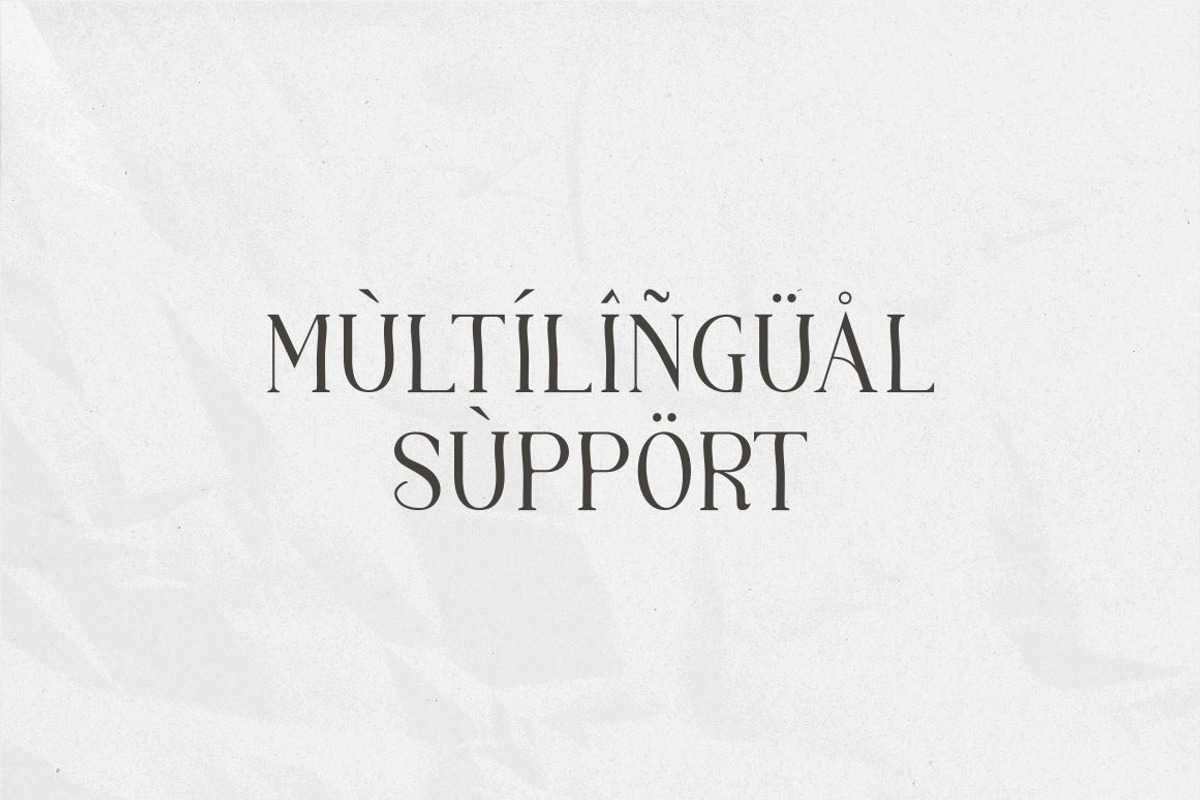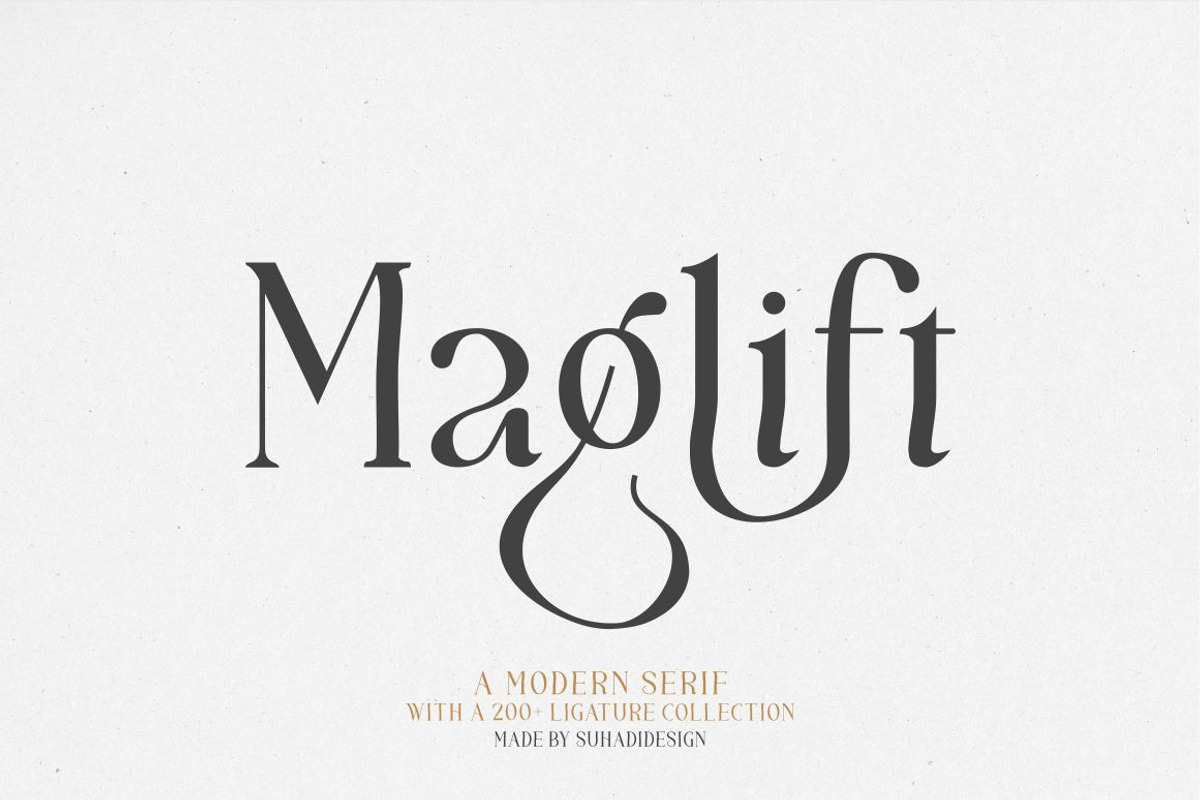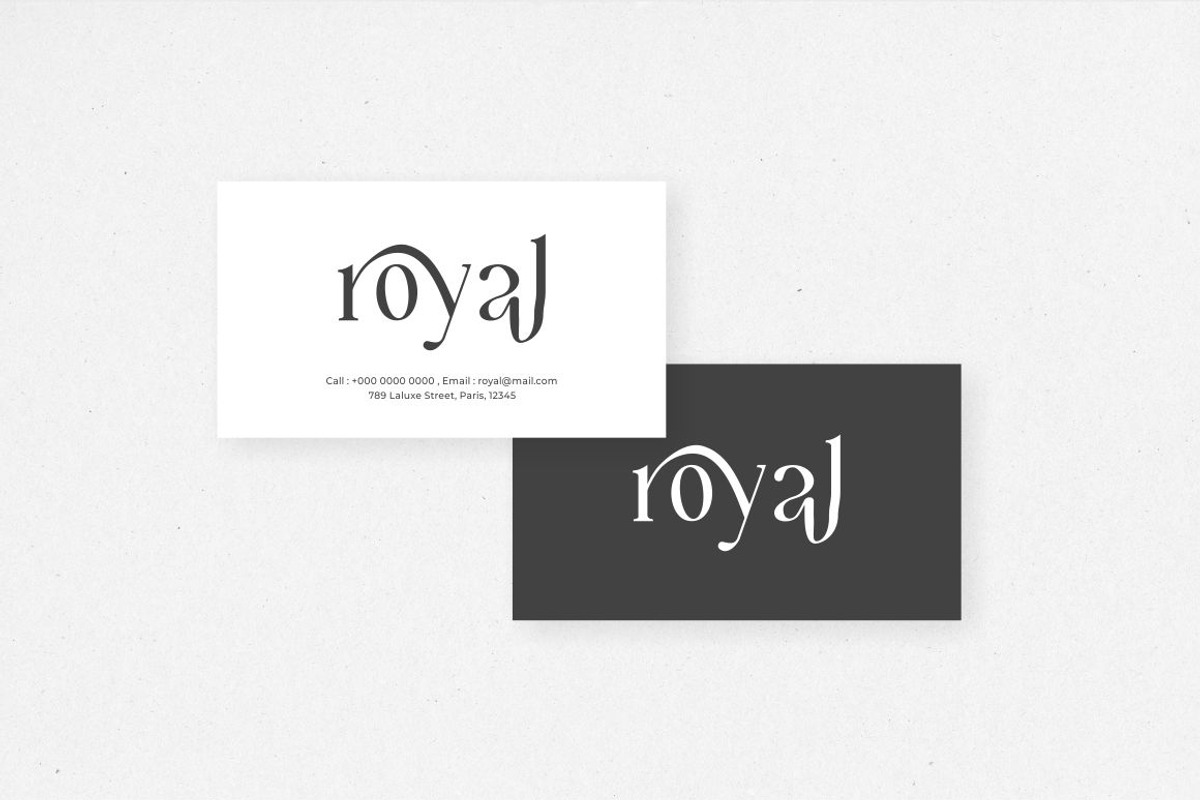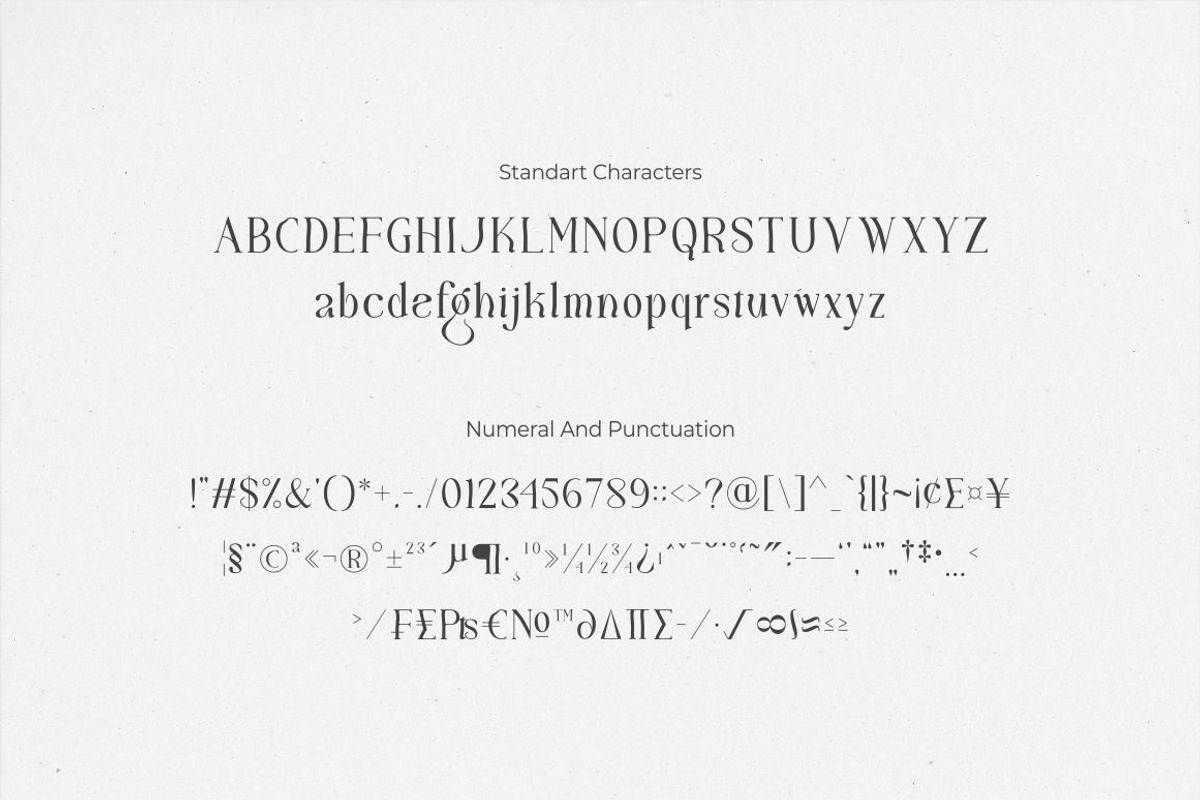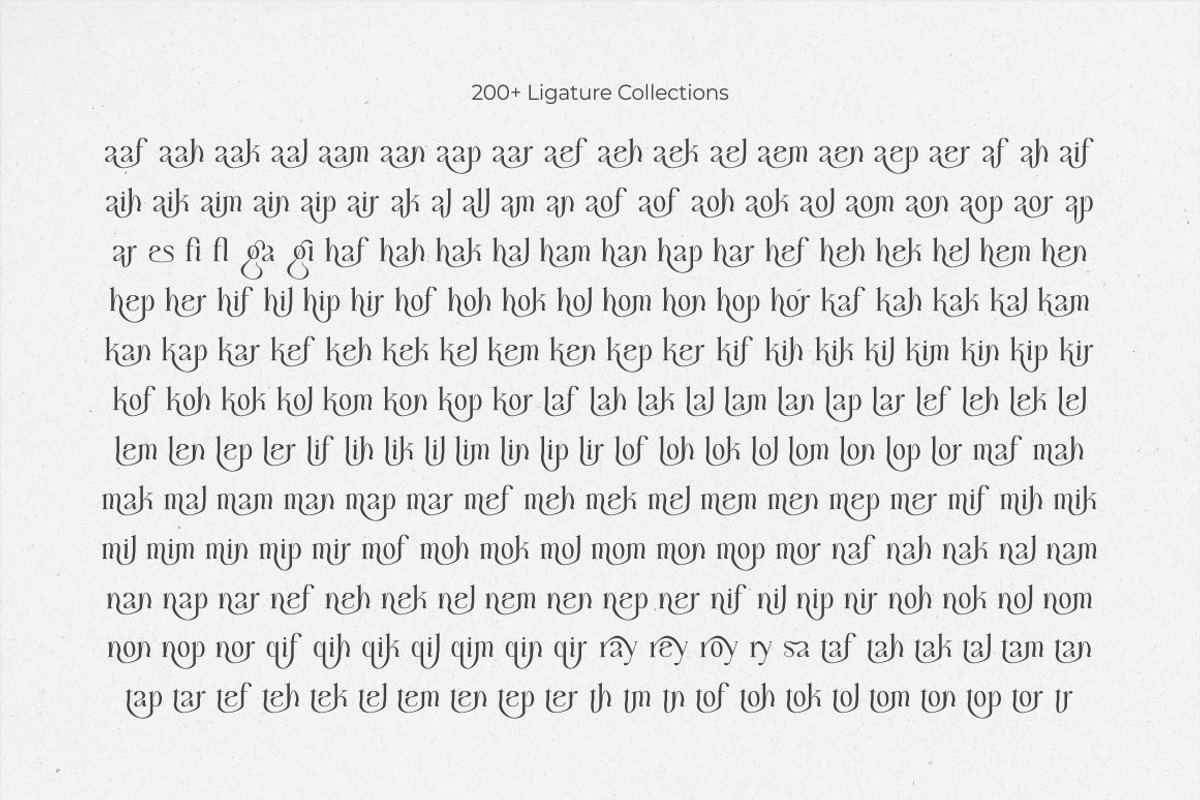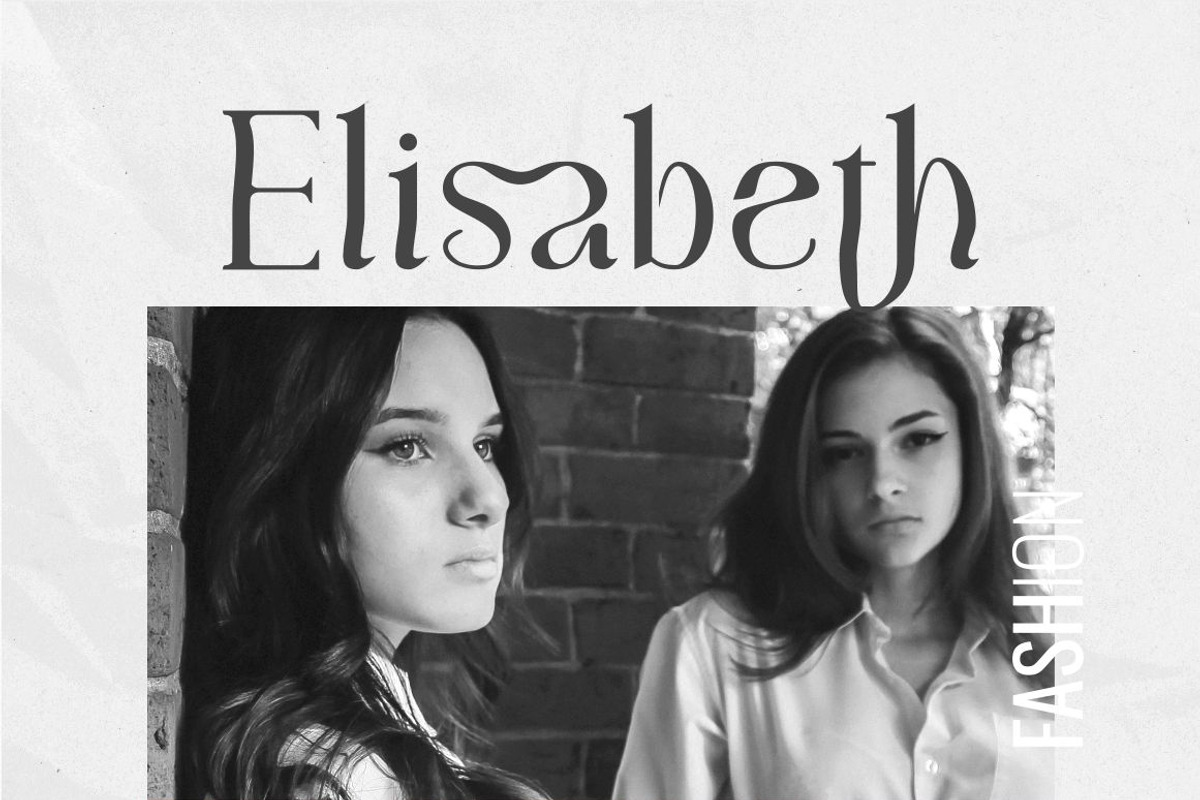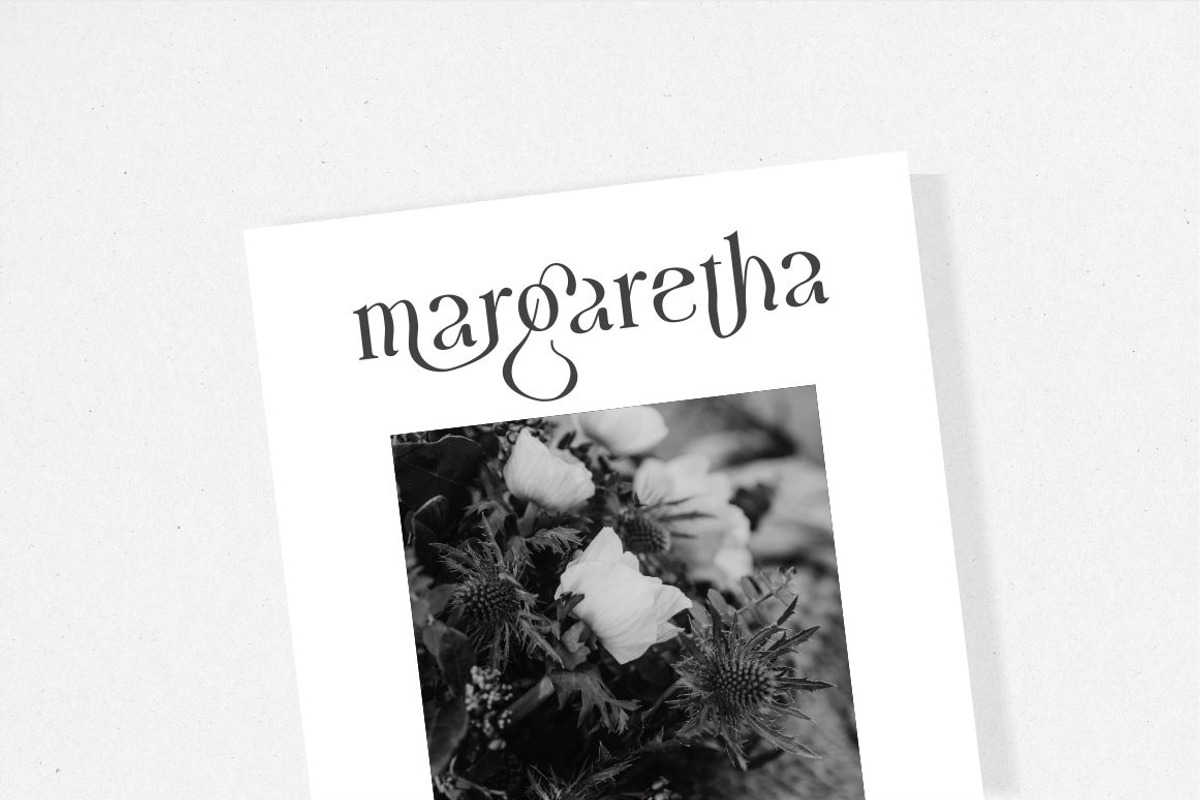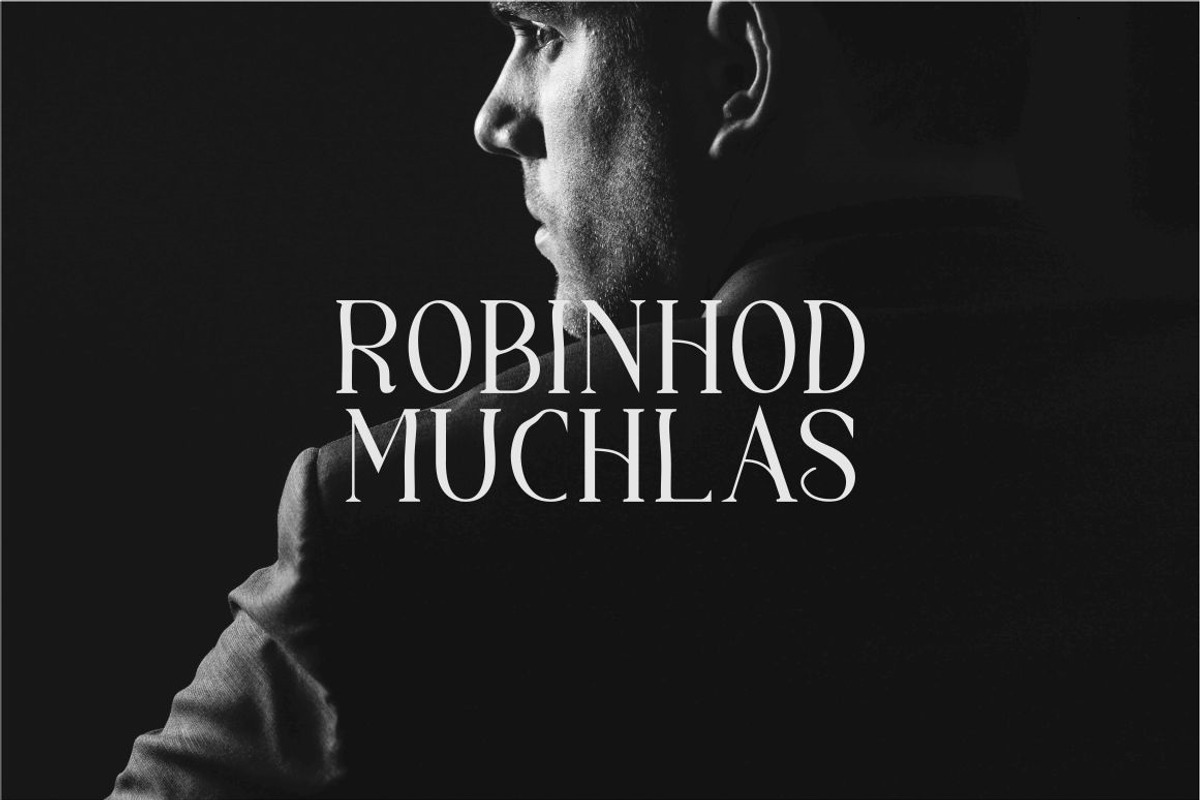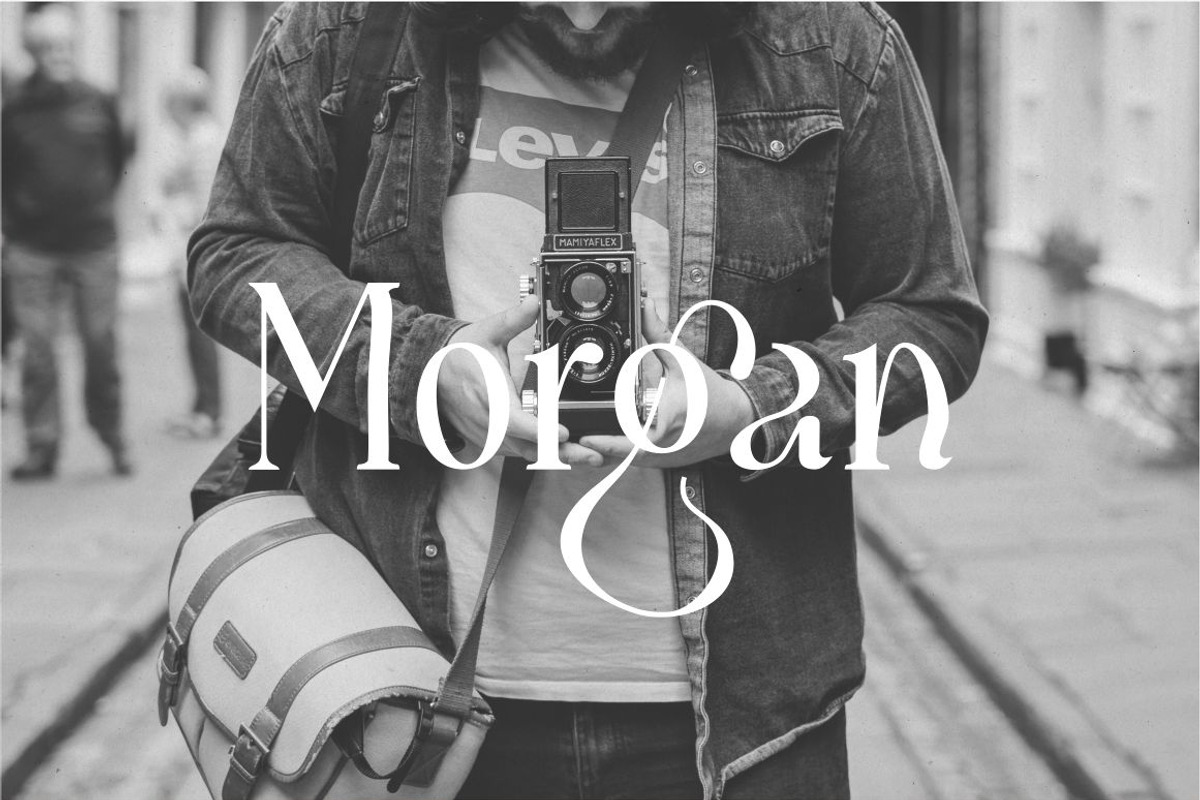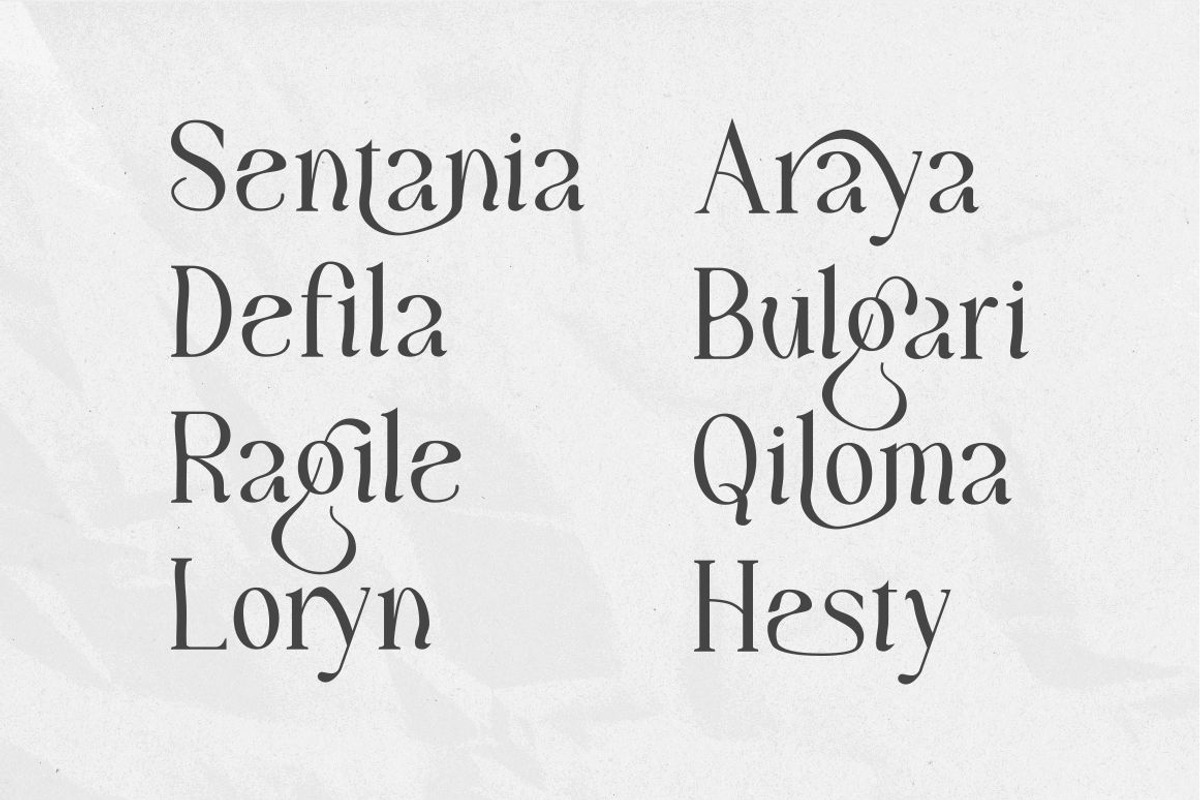
Maglift serif 200+ ligature collections
Hi ladies and gentlemen! Due to the popularity of the market for modern fonts, I created a serif font that suits your needs. The Maglift font is a modern serif font with 200+ ligatures. is here to become a market favorite. We made this font look elegant, classy, easy to read, stylish, attractive and easy to use. Maglift Font is a great choice for magazine designs, newspapers, fashion, classy designs, newspapers, modern, books, brand names, branding and other projects. The Maglift font is here to enhance the quality of your designs.
Feature:
• Uppercase • Lowercase • Multilingual Support • Numbers and punctuation • 200+ Ligature collections